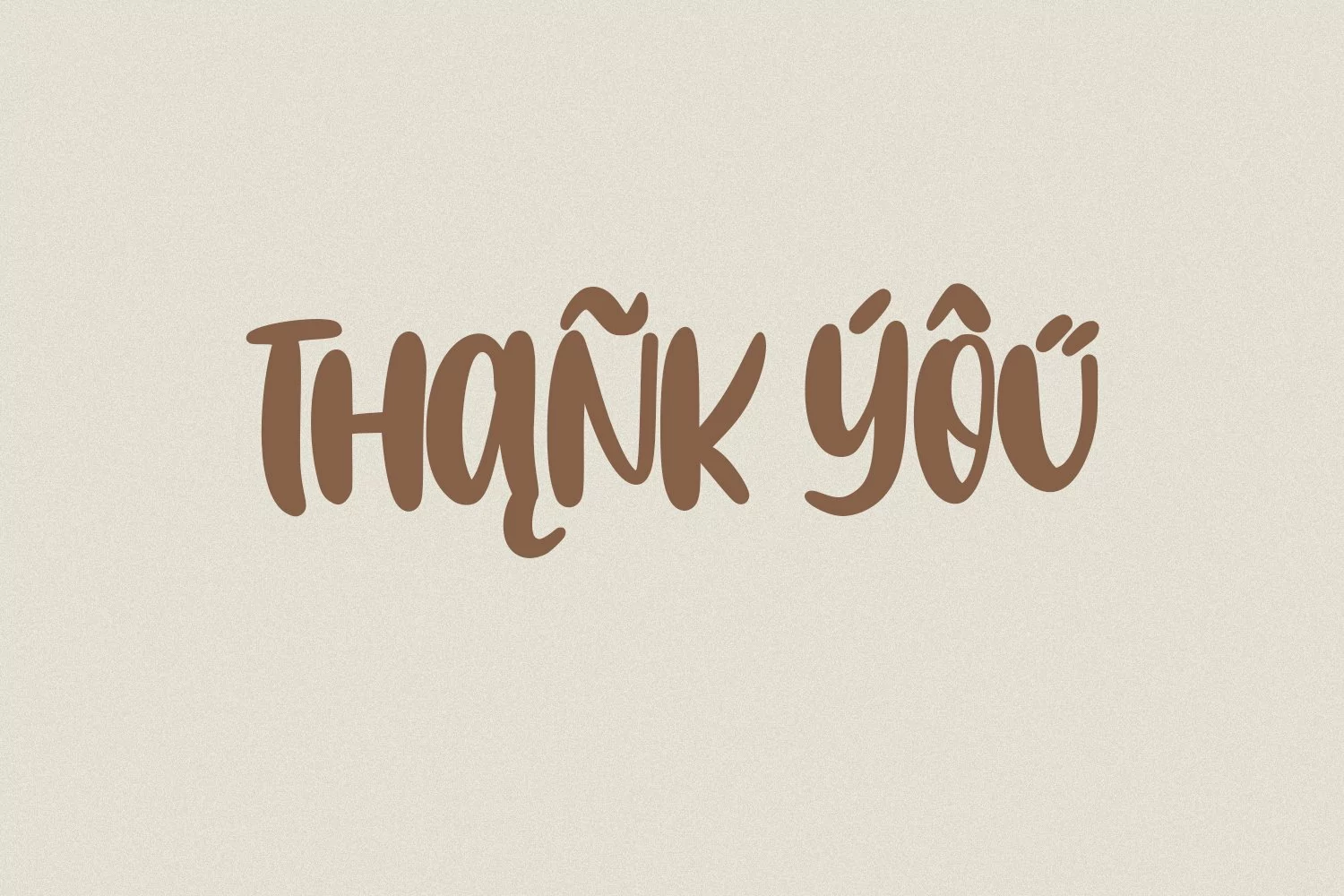
Aurellia is a simply casual Handwritten font. With bold stroke, uprights and fun character with a bit of ligatures. To give you an extra creative work. Aurellia font support multilingual more than 100+ language. This font is good for logo design, Social media, Movie Titles, Books Titles, a short text even a long text letter and good for your secondary text font with sans or serif. Make a stunning work with Aurellia font.